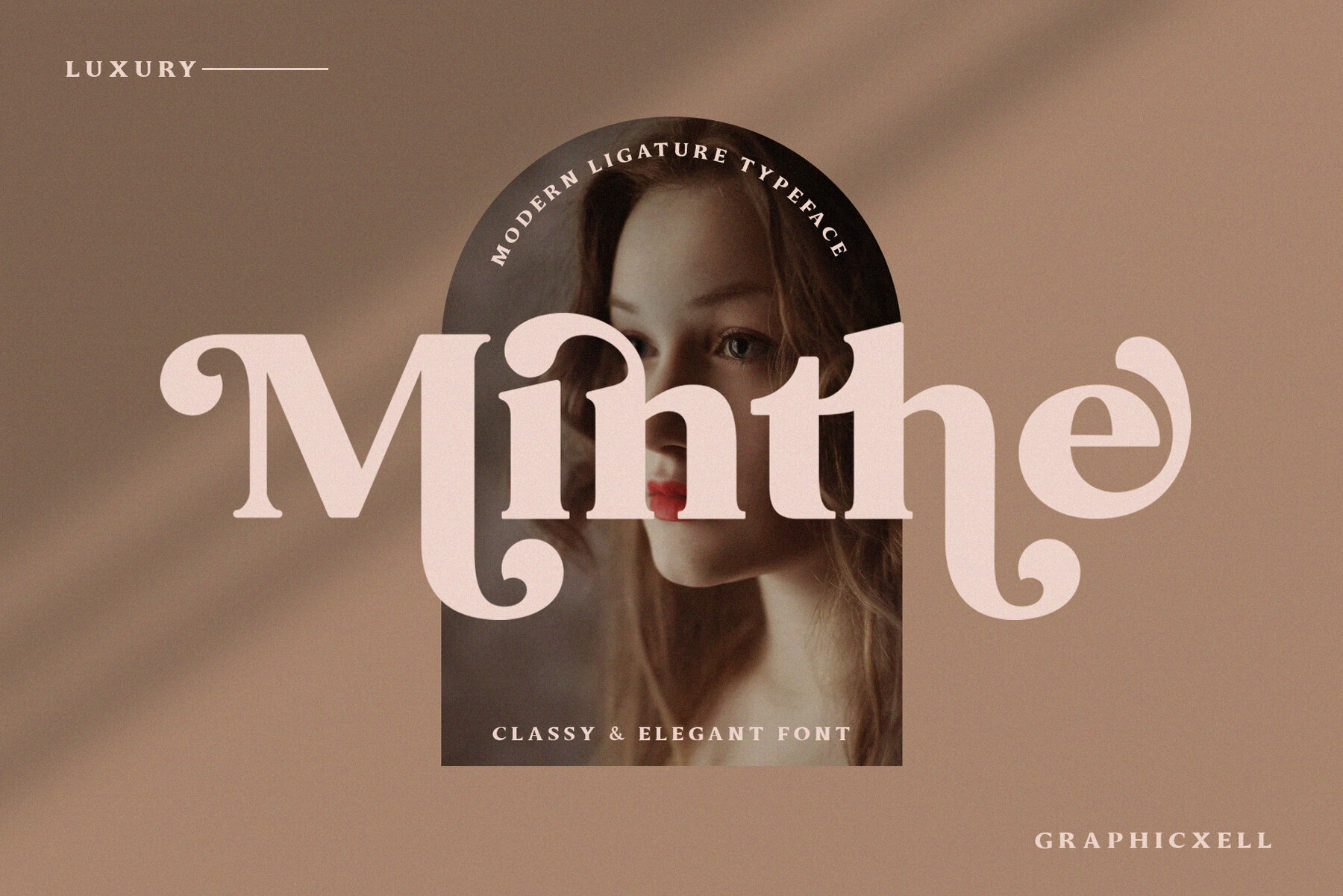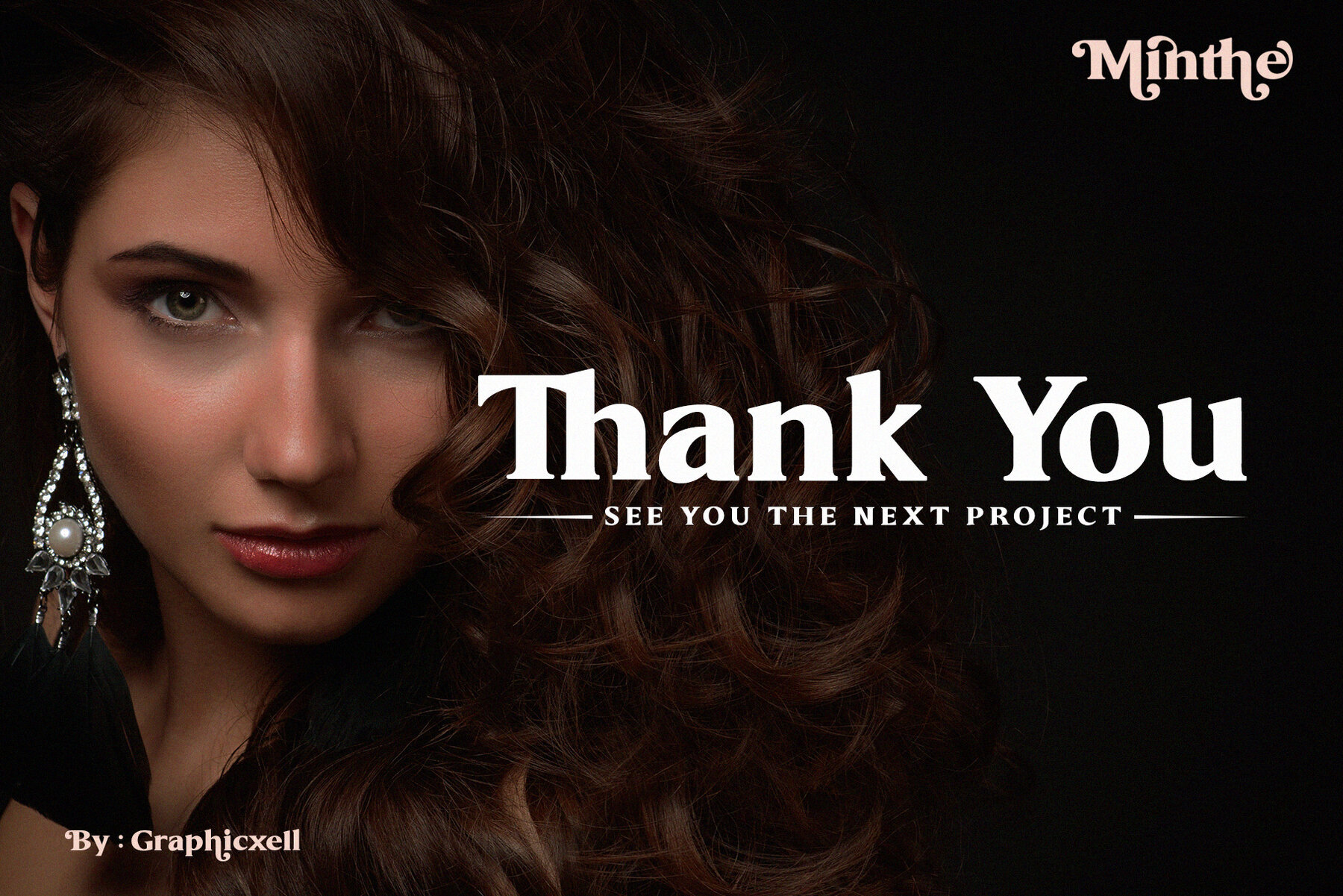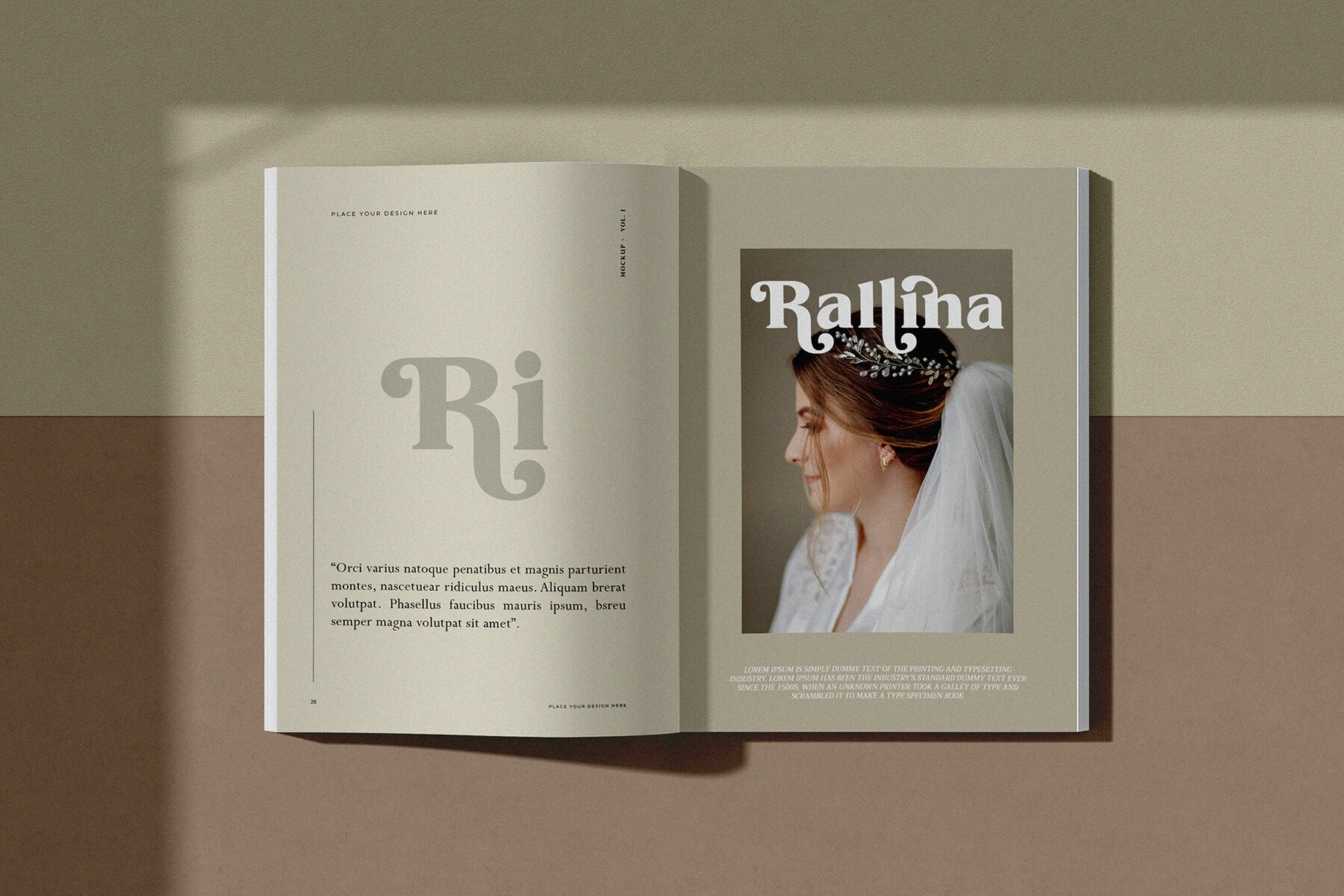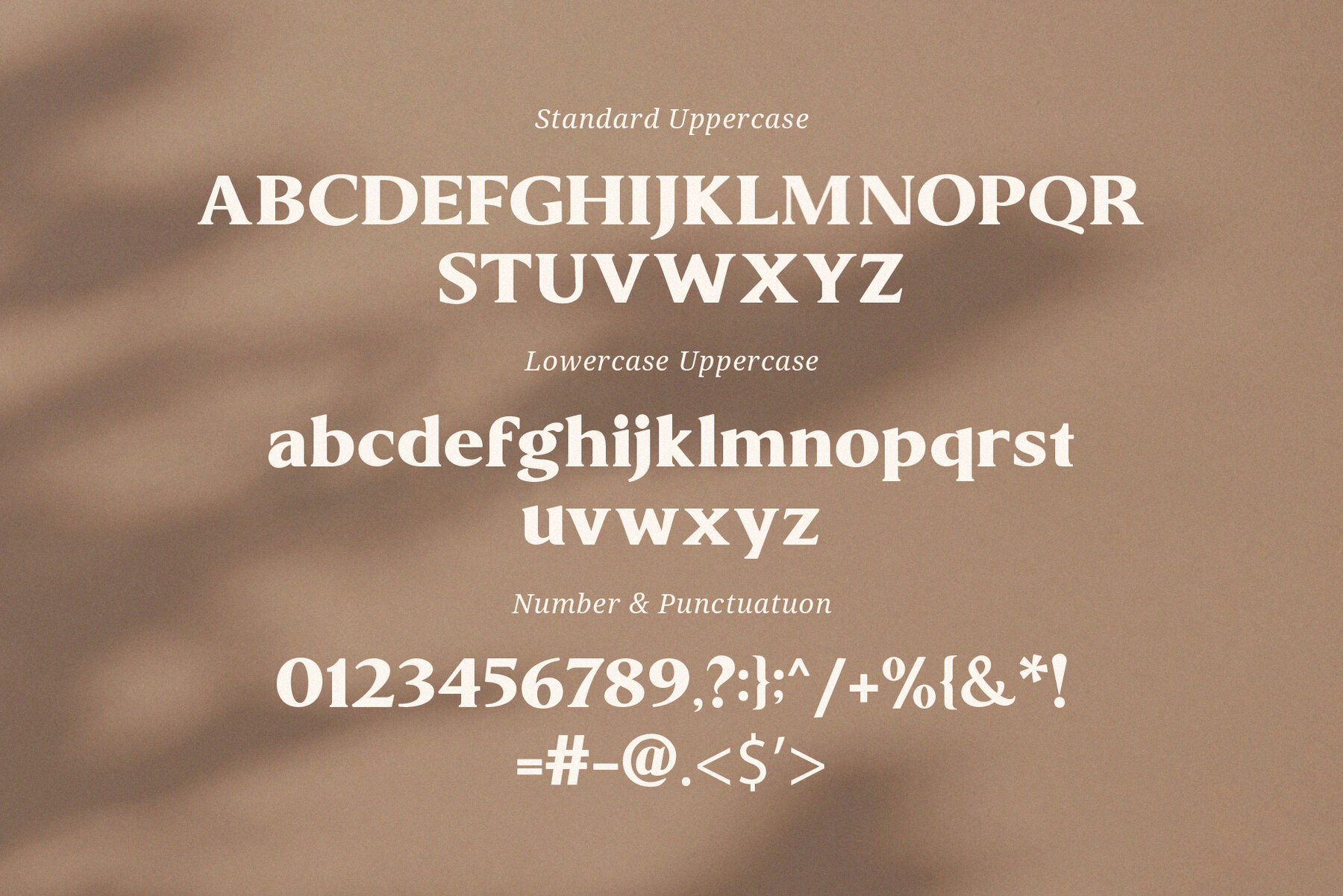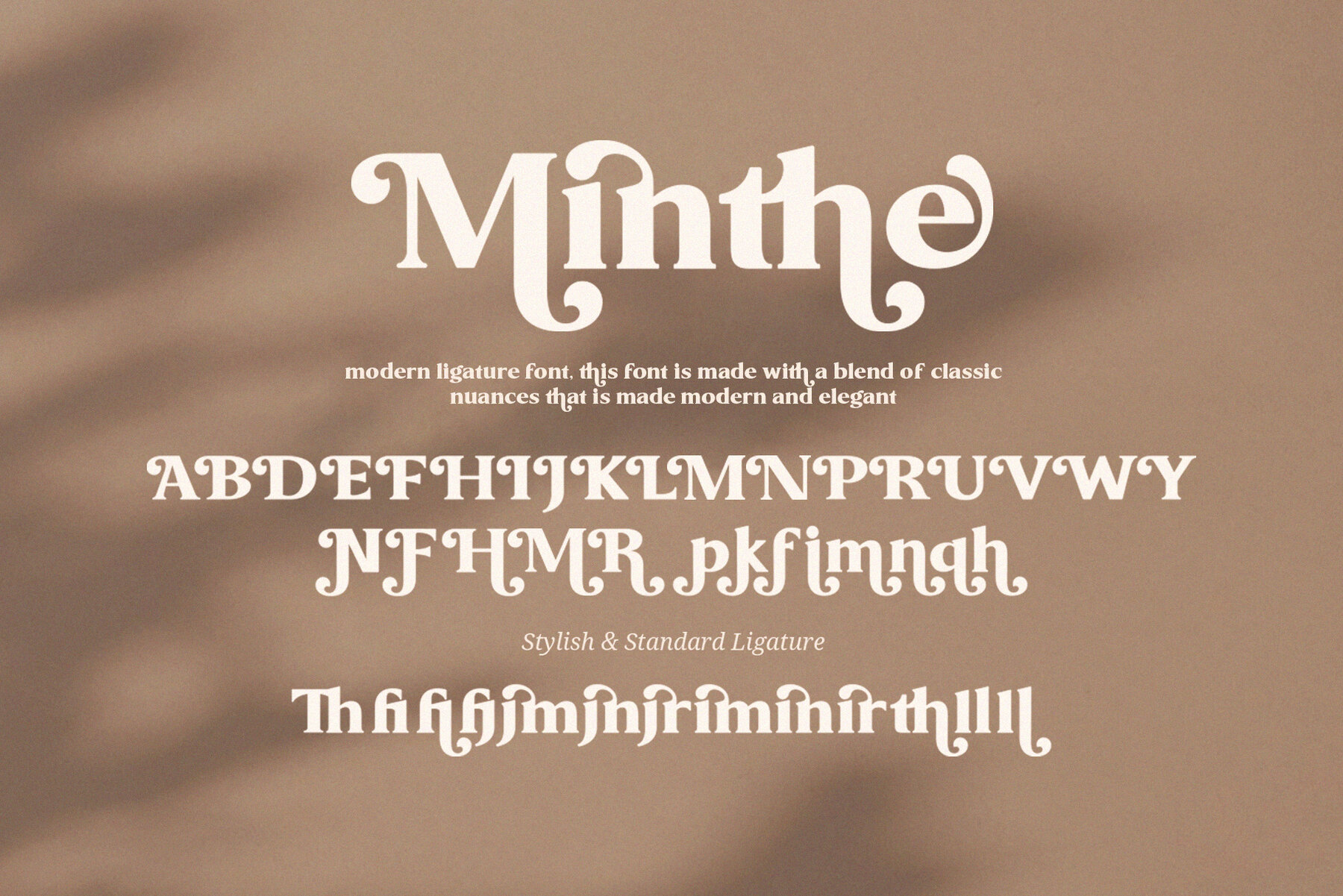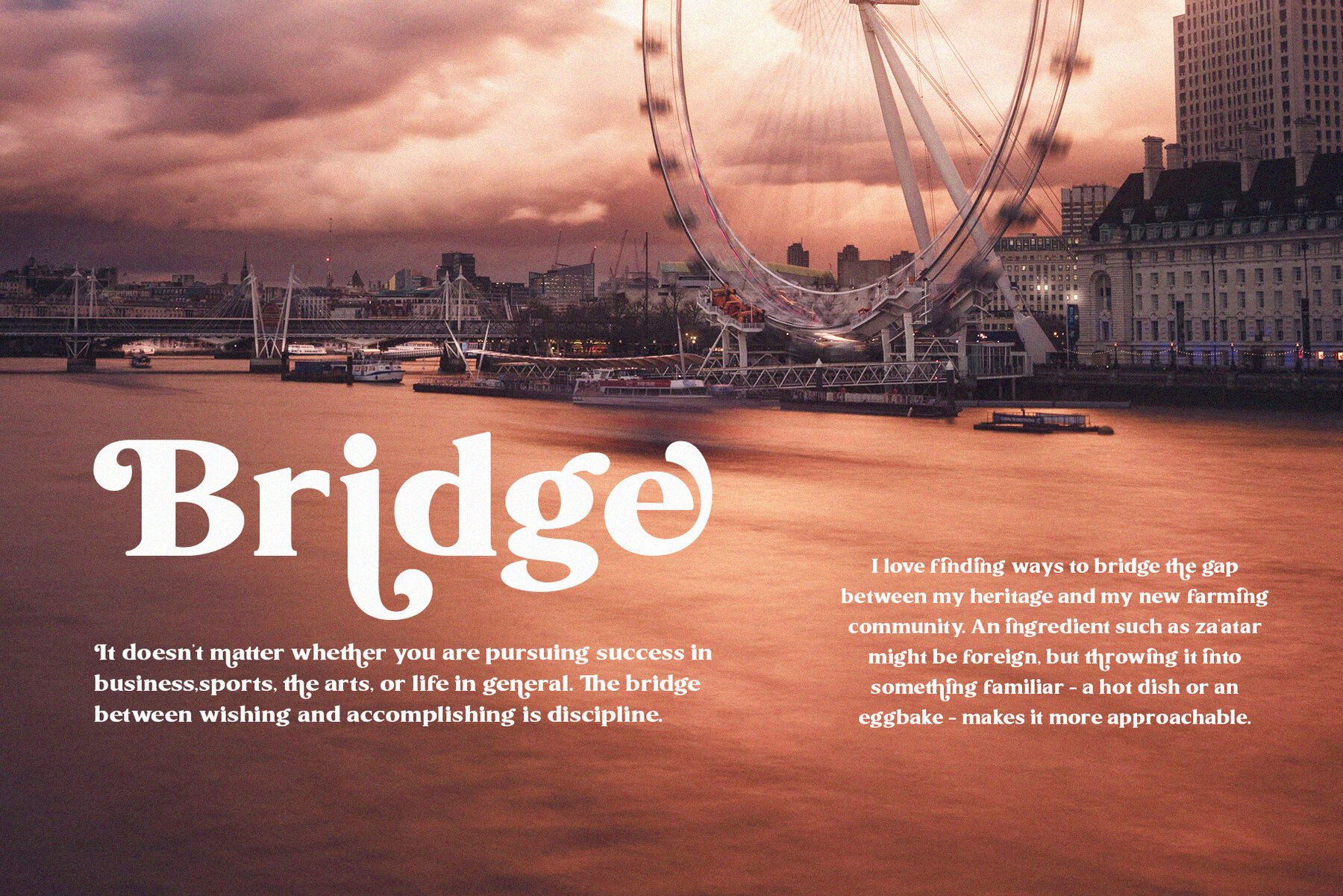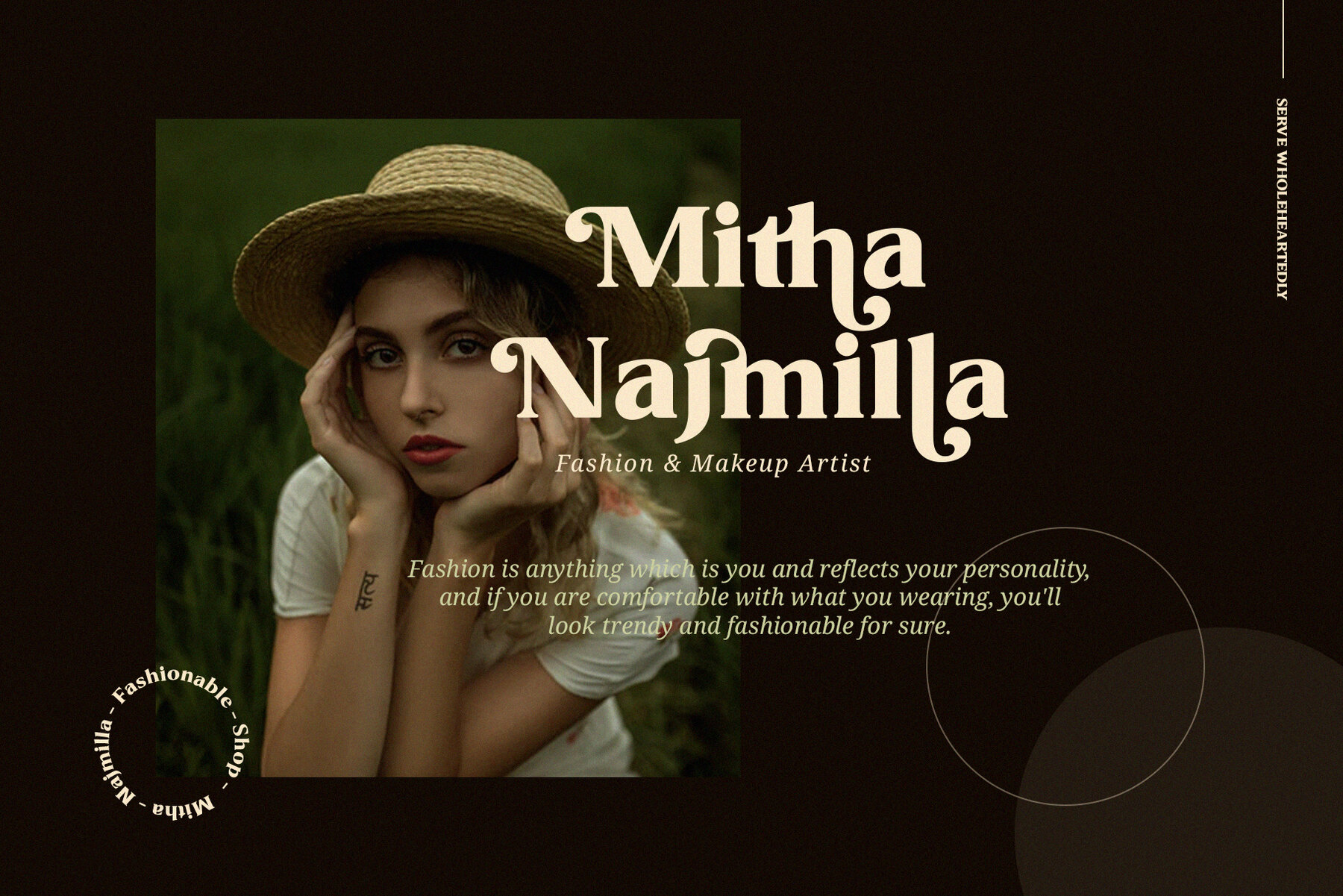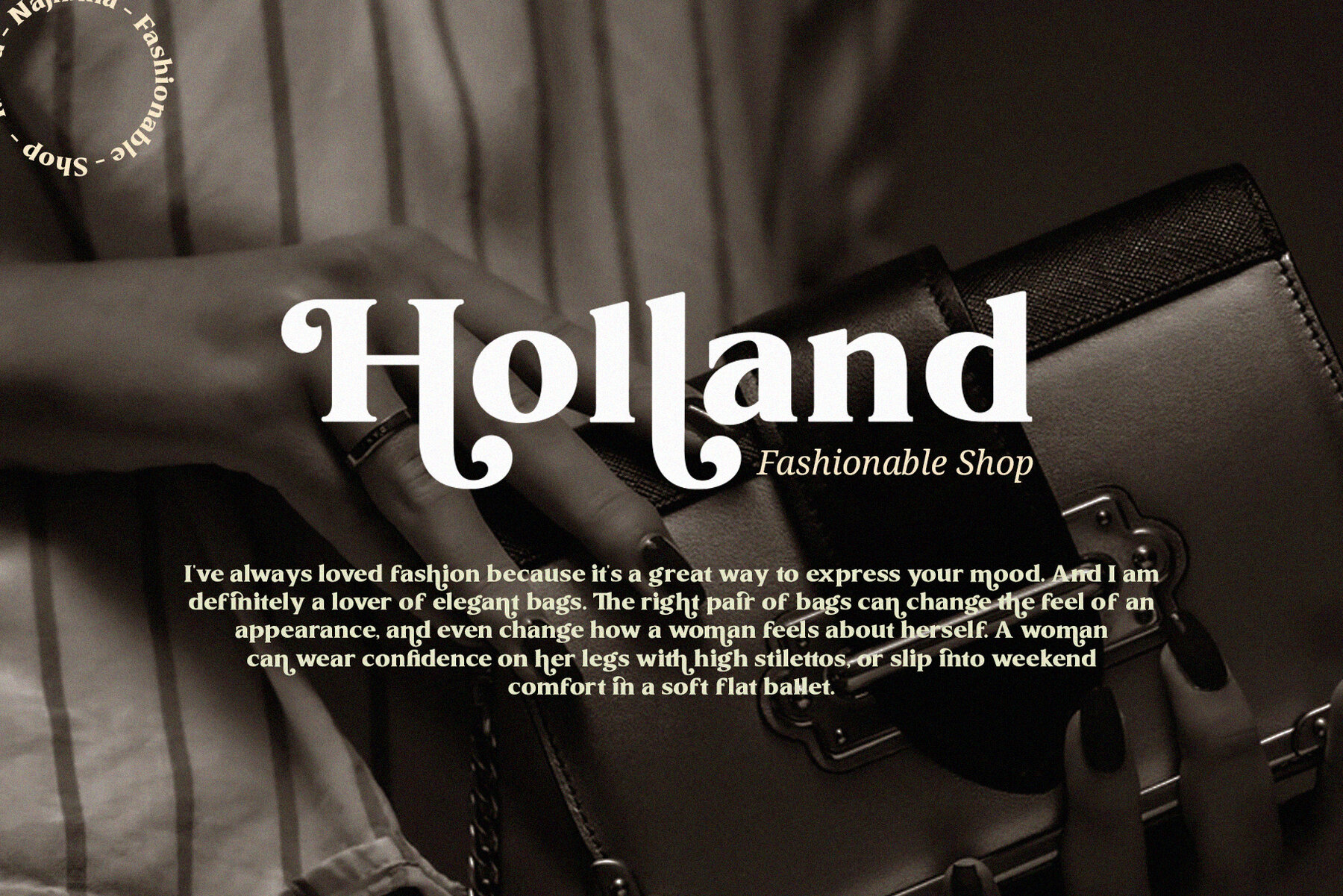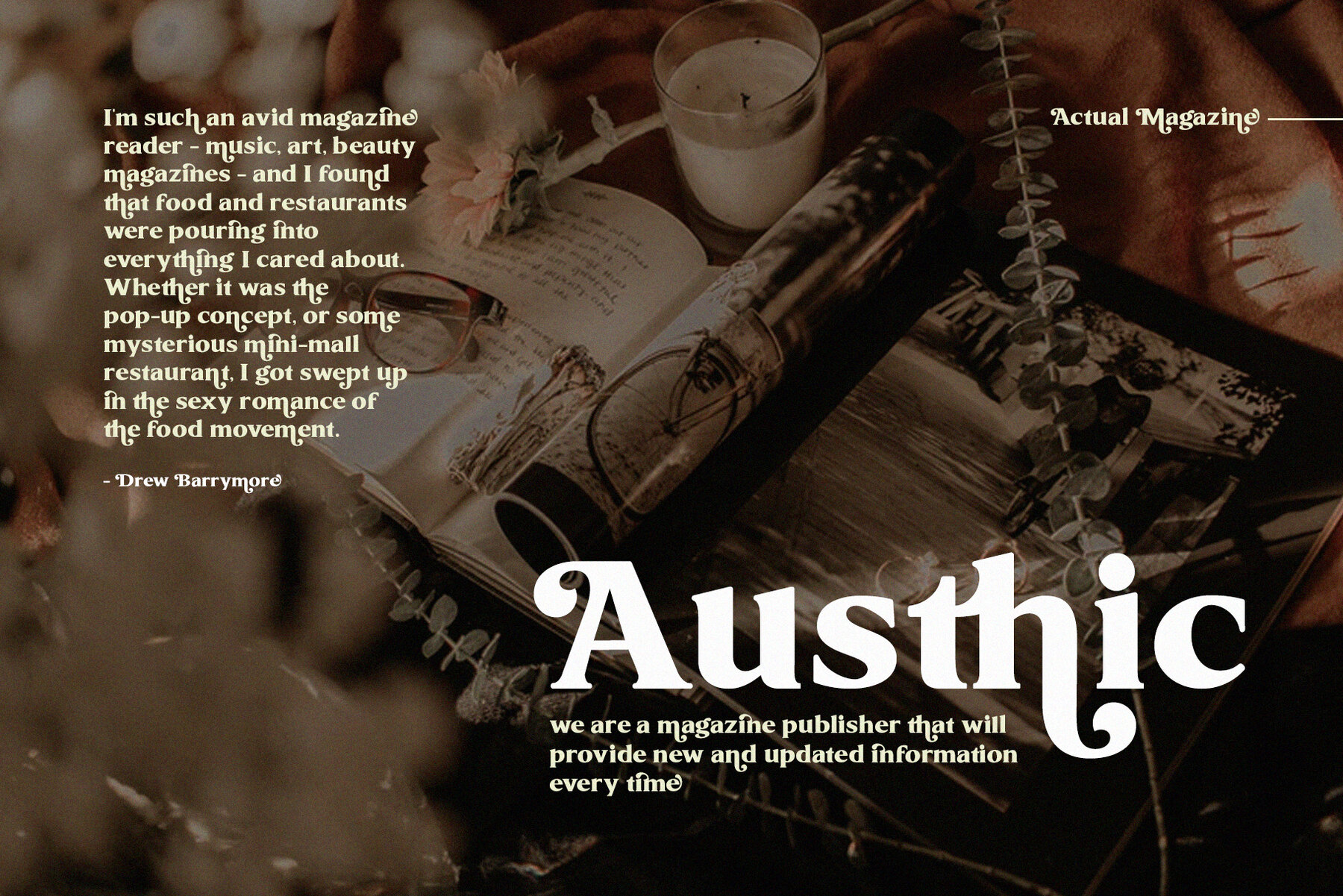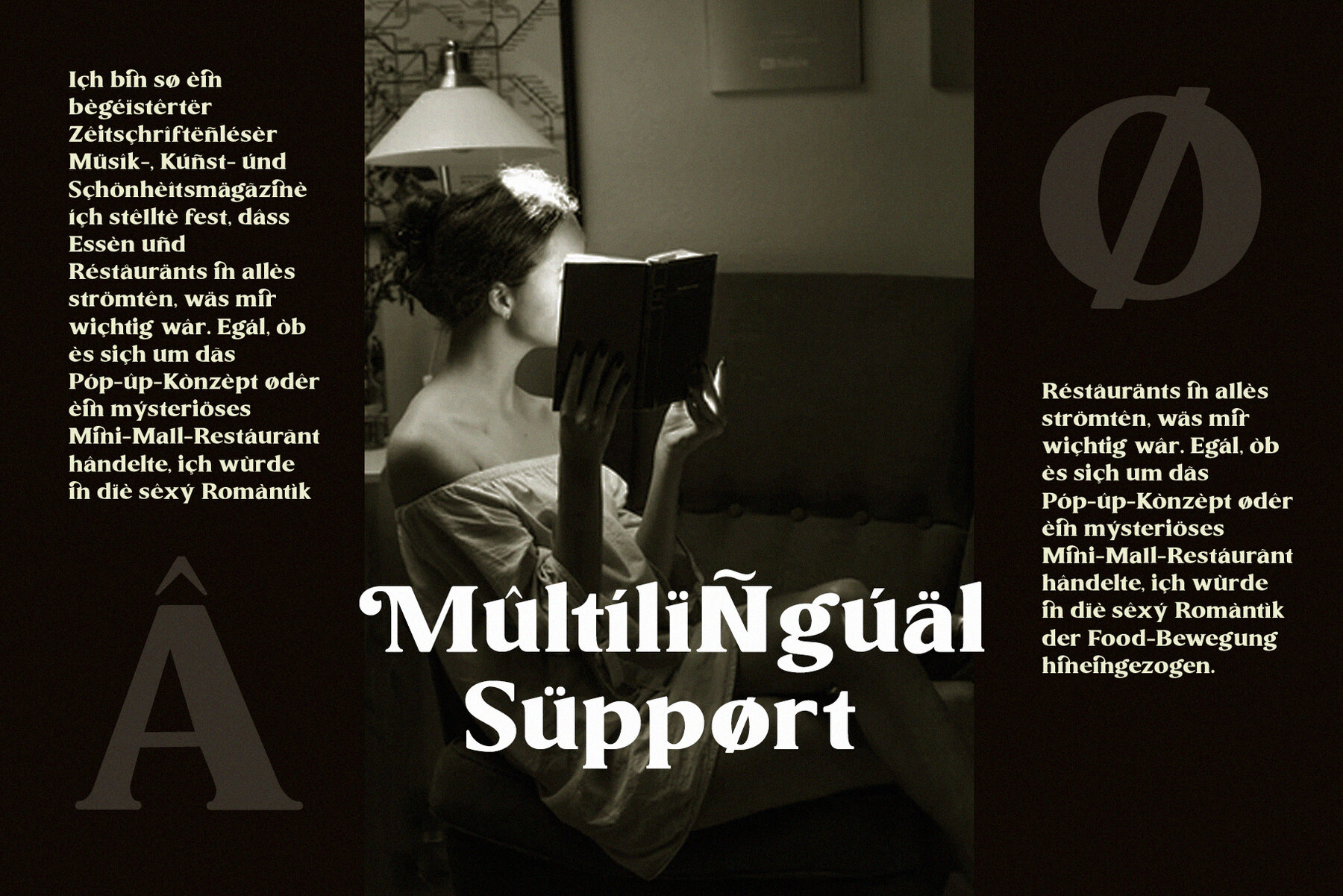
Minthe Font
Minthe Regular
Minthe is a modern serif font that has soft curves and high contrast glyphs to give it an elegant yet feminine quality. This typeface works well for quotes or body copy, best used in layouts such as logos with headings; however you can also use this fun little discovery when designing your own invitations!